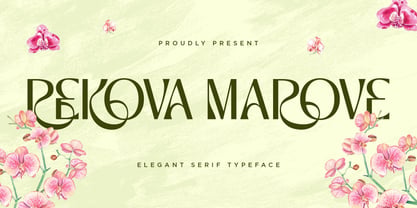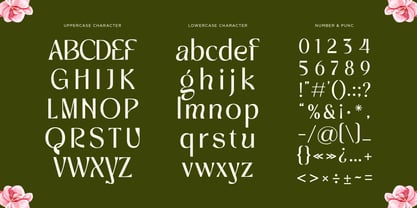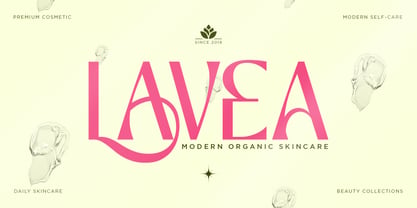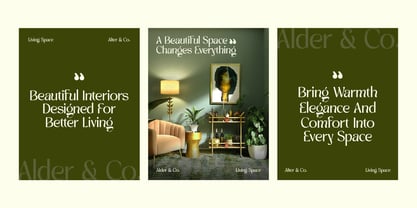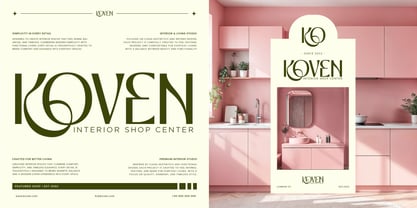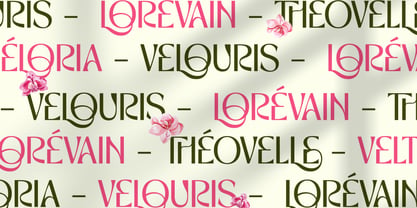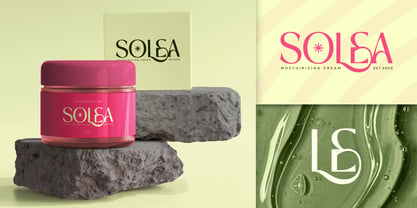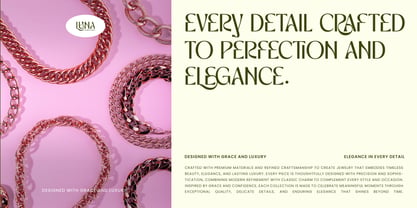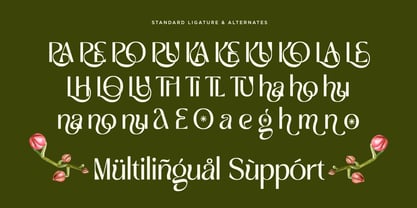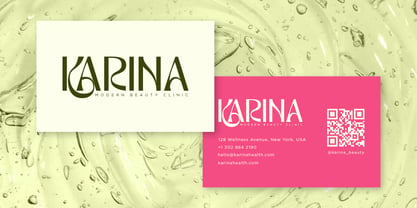
Rekova Marove
by Sototive
The Rekova Marove Font Family was designed by Sofyananto and published by Sototive. Rekova Marove contains 1 styles. More about this family
Rekova Marove is an elegant serif typeface crafted with a perfect blend of luxury curves and classic structure. Designed specifically for high-end projects, this font brings a sophisticated, timeless aesthetic to your designs. It is the ultimate choice for luxury branding, editorial layouts, logos, fashion magazines, cosmetic packaging, and high-style invitation cards.
Features Included:
- Uppercase & lowercase alphabet, numerals, and standard punctuation
- Standard Ligatures & Unique Alternates
- Multilingual Support